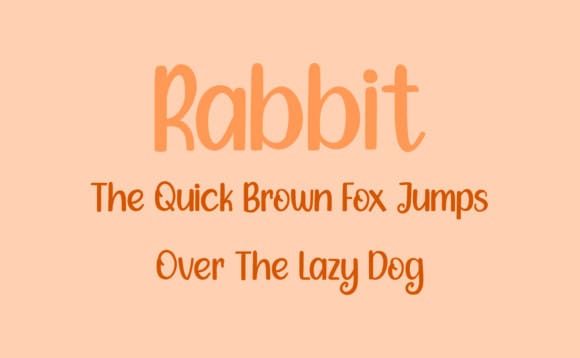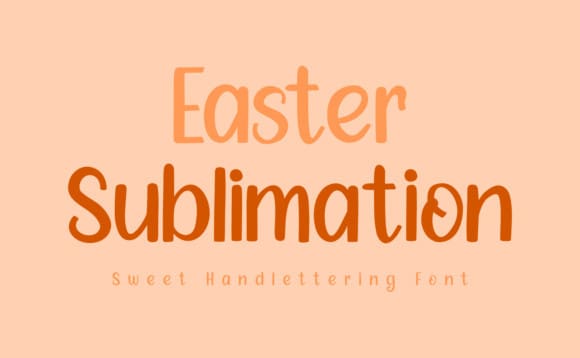
Easter Sublimation Font
Easter Sublimation Font is a fun and casual handwritten font. Incredibly versatile, this font is suitable for a wide pool of design ideas.